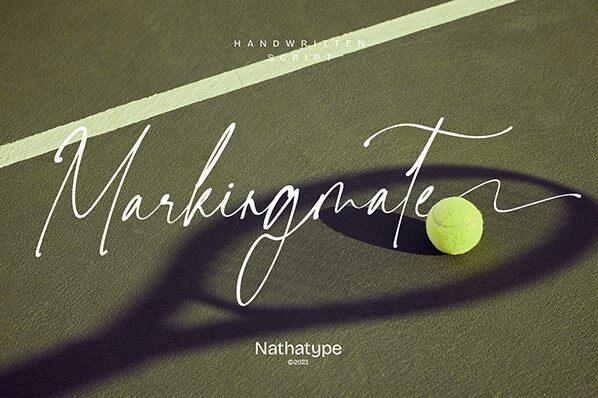
Markingmate font by Nathatype is a light, condensed handwritten font in a modern signature style. The strokes are elegant and fluid with artistic flair an expressive nature, making it an exquisite option for sophisticated projects that require something subtle and stylish. Each character has its own charm which contributes to the overall visual effect that this free handwritten font creates.